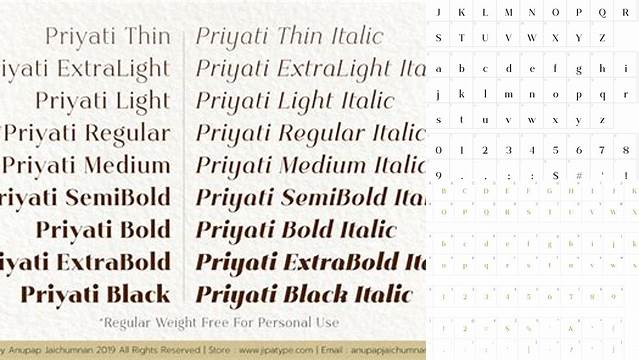
Priyati Medium Font: What Makes It Special?
Priyati Medium isn't just another font; it's a carefully crafted typeface that brings a touch of elegance and readability to any project. This font stands out with its balanced letterforms, making it perfect for both headings and body text. Its medium weight strikes the right balance between being too light and too bold, ensuring that your text remains legible across various screen sizes and print materials. When you're working on branding projects, websites, or even simple documents, Priyati Medium can elevate the overall aesthetic and make your content more engaging. It’s this blend of versatility and visual appeal that makes it a favorite among designers and content creators.
Key Features of Priyati Medium
- Balanced Letterforms:
The balanced letterforms of Priyati Medium are meticulously designed to ensure harmony and readability. Each character is crafted with precision, maintaining consistency in stroke width and spacing. This attention to detail makes the font visually appealing and easy on the eyes, reducing reader fatigue. Whether used in large headlines or smaller body text, the balanced design ensures clarity and legibility. Designers appreciate this feature for its ability to create a polished and professional look in any project.
- Optimal Medium Weight:
The medium weight of Priyati Medium is its defining characteristic. It strikes a perfect balance, providing enough visual presence without overwhelming the reader. This makes it suitable for a wide range of applications, from website content to print materials. The weight ensures that the text stands out against the background while maintaining a clean and uncluttered appearance. This versatility allows designers to use the font in various contexts, enhancing the overall design without sacrificing readability.
- Versatile Use Cases:
The versatility of Priyati Medium makes it an excellent choice for numerous design projects. Its clean and modern appearance works well for branding, advertising, and editorial design. The font is equally effective in digital and print formats, adapting seamlessly to different media. This adaptability makes it a go-to option for designers who need a reliable font that can deliver consistent results across various platforms. Whether you're designing a website, creating marketing materials, or formatting a document, Priyati Medium offers the flexibility and quality you need.
Priyati Medium Font: A Conclusion